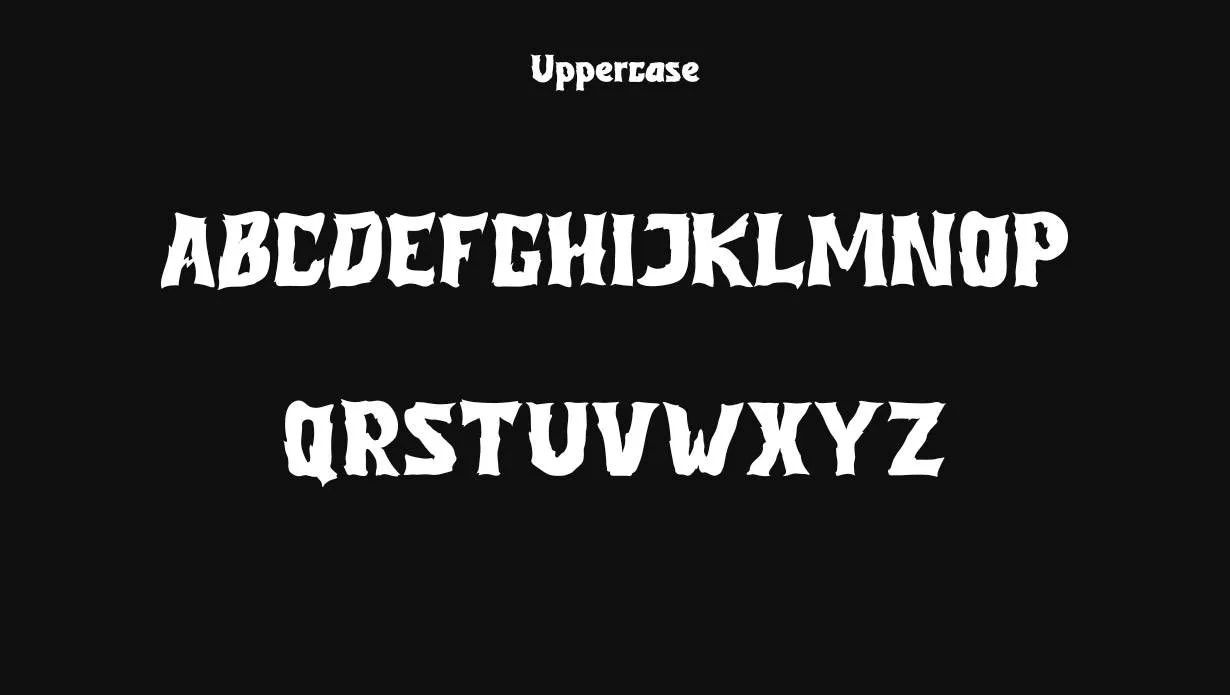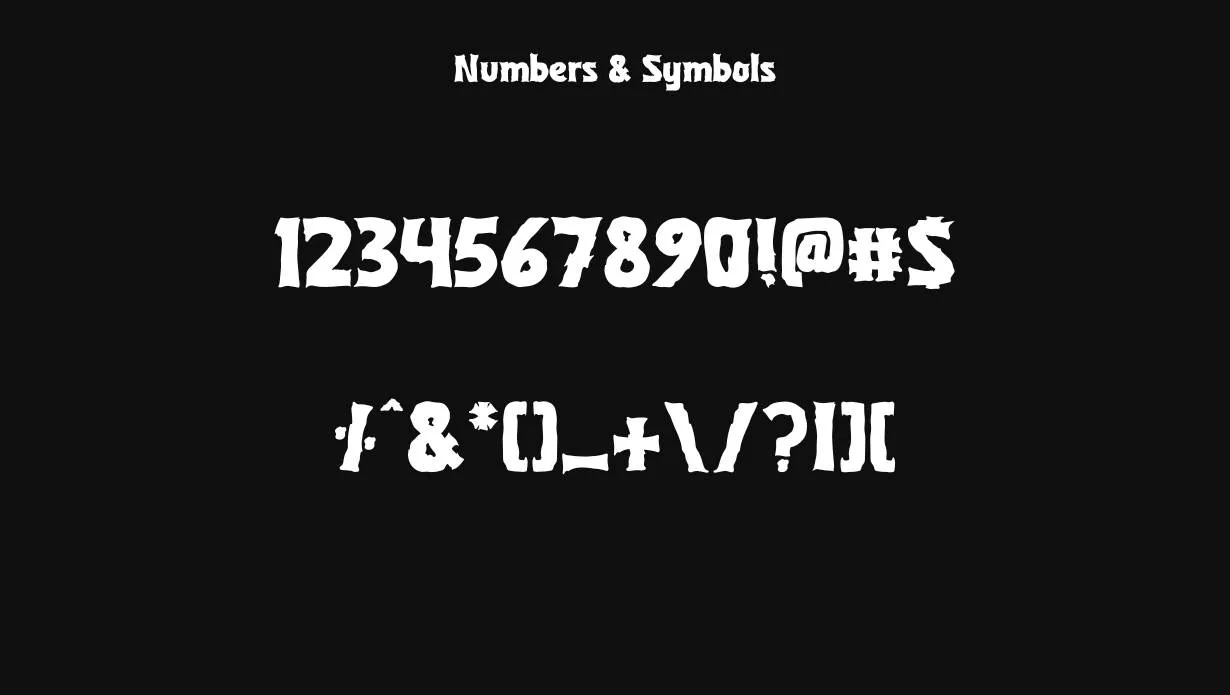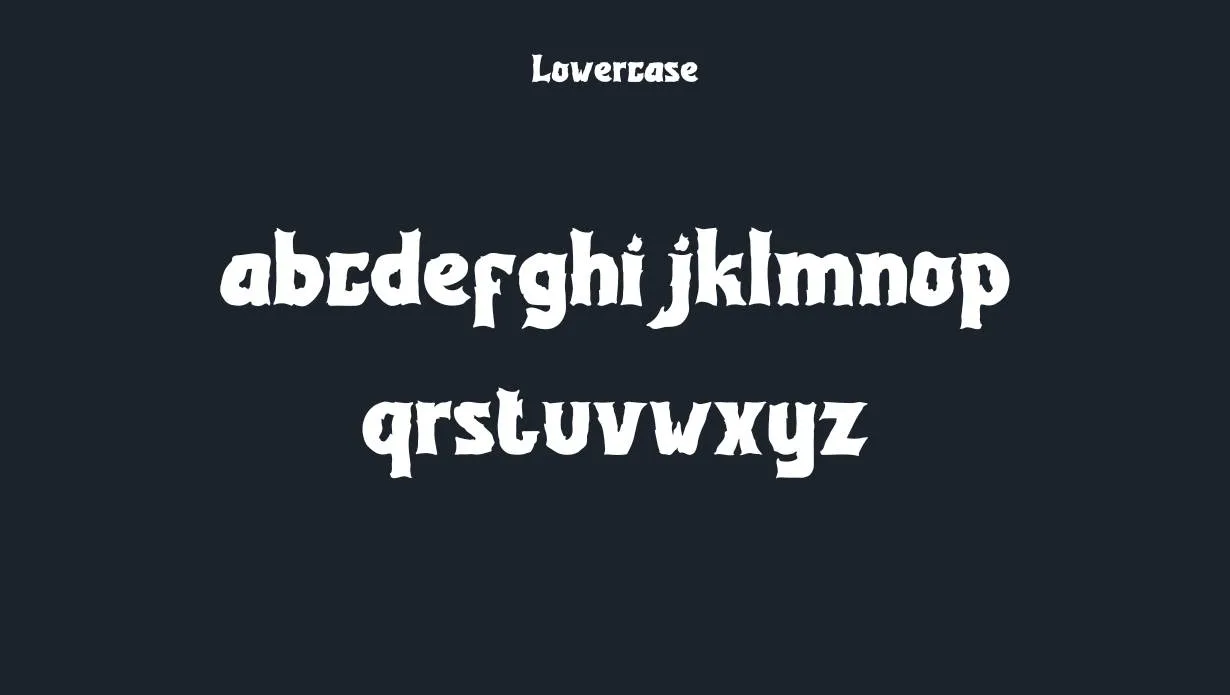
Pumpkin Night Font is a thick and cool display font style that was created by Abul Almaududi and published by Pixesia Studio.
This font had a Halloween and scary texture that made it perfect for horror and fearful displays.
Pumpkin Night Font Family
| Name | Pumpkin Night Font |
| Designer | Abul Almaududi |